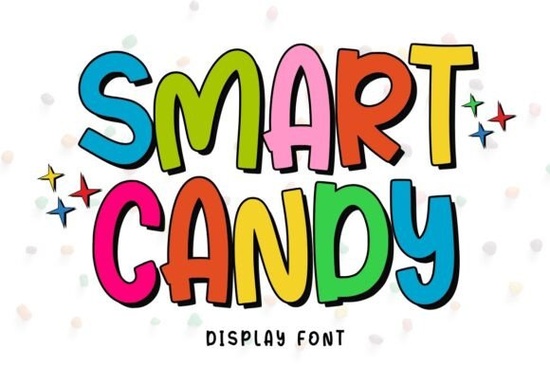
If you've been searching for a bold display font that feels fun, playful, and eye-catching, the Smart Candy Font is worth a close look. It's a cute, chunky typeface designed to make headlines, logos, and product designs pop off the screen. Whether you sell on Etsy, design social media posts, or work on printable party supplies, this font gives your work a cheerful, confident look without trying too hard.
What Kind of Style Does Smart Candy Have?
Smart Candy is a display font, which means it's built for short, bold text things like titles, headers, and logos. It's not meant for body copy or long paragraphs. Instead, it works best when you need a few words to grab attention fast.
The style is rounded, thick, and playful. Each letter has a soft, candy-like feel that makes it great for designs targeting kids, families, or anyone who loves a lighthearted aesthetic. Think birthday invitations, candy shop branding, bakery menus, or fun t-shirt designs.
Here are a few qualities that stand out:
- Bold weight thick strokes that stay readable even at smaller display sizes
- Rounded shapes soft edges give it a friendly, approachable personality
- Unique character design not your typical blocky or overly geometric display font
- Good for layering pairs well with simple sans-serifs or handwritten scripts
Where Can You Use a Font Like This?
This type of font works well across a range of creative projects. If you do any of the following, Smart Candy could fit right into your toolkit:
- Print-on-demand t-shirts, mugs, tote bags, and stickers
- Party supplies invitations, cupcake toppers, banners, and favor tags
- Social media Instagram stories, YouTube thumbnails, Pinterest pins
- Branding logos for bakeries, candy shops, toy stores, or kids' clothing brands
- SVG and cut files Cricut and Silhouette projects with bold, clean lettering
Because it's a cute, bold display font, it naturally draws the eye. That makes it a solid choice any time you need text to be the focal point rather than blend into the background.
How Does It Compare to Other Display Fonts?
There are hundreds of display fonts out there, so how does Smart Candy hold up? It fills a specific niche playful and bold without being cartoonish or childish. It sits somewhere between a fun party font and a polished headline typeface.
If you're exploring other options in the same category, here are a few worth comparing:
- CollegeStyle a sporty, varsity-inspired font with a completely different vibe. Great for athletic or school-themed designs.
- GrungeJersey a distressed display font that works well for edgy or vintage-style projects.
- Distressed Varsity another sports-leaning option with a worn, textured look.
- Brooklin Varsity clean and classic, perfect for team logos and letterman-style graphics.
Compared to those, Smart Candy leans much more toward a whimsical, candy-inspired aesthetic. If your audience is kids, parents, or anyone who loves colorful and fun designs, this font will likely be a better match than the varsity-style alternatives.
What Fonts Pair Well With Smart Candy?
Pairing fonts is half the fun of design work. Since Smart Candy is bold and expressive, you'll want to balance it with something simpler. Here are a few pairing ideas:
- A clean sans-serif like Montserrat or Open Sans for body text underneath a Smart Candy headline
- A casual handwritten script for designs that need a personal, homemade feel
- A thin, modern sans-serif to create contrast between the chunky title and lighter supporting text
As a general rule, don't pair two bold display fonts together. Let Smart Candy do the heavy lifting and keep everything else understated.
Is Smart Candy Right for Your Next Project?
If your designs call for something fun, rounded, and bold, this font delivers. It's especially well-suited for:
- Sellers on Etsy, Redbubble, or Shopify who need standout text on products
- Crafters working on party decor or seasonal printables
- Small business owners building a playful brand identity
- Anyone who wants a display font that feels cheerful without being over the top
Starting a new design with the right font makes everything easier. If Smart Candy matches the look you're going for, it's a solid addition to any designer's font collection.